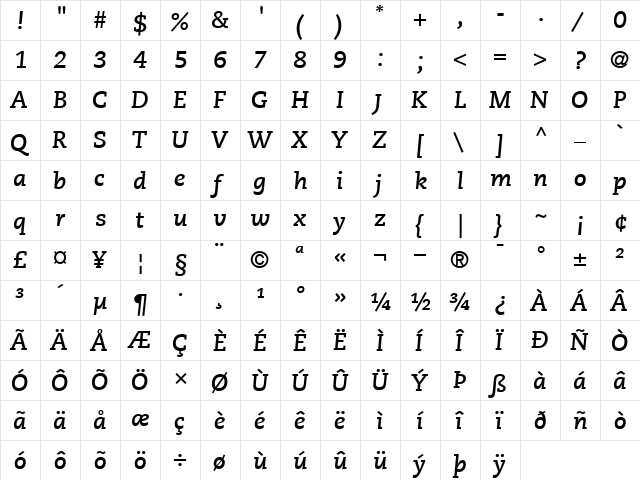
PMNCaecilia76 BoldItalic
Design Context for PMNCaecilia76 Typeface
PMNCaecilia76 offers clean, dependable letterforms without strong stylistic allegiance, making it a practical choice for designers who need flexibility. The dynamic lean of this cut emphasises speed and emphasis in any layout. Its bold stroke weight gives it real presence on the page.